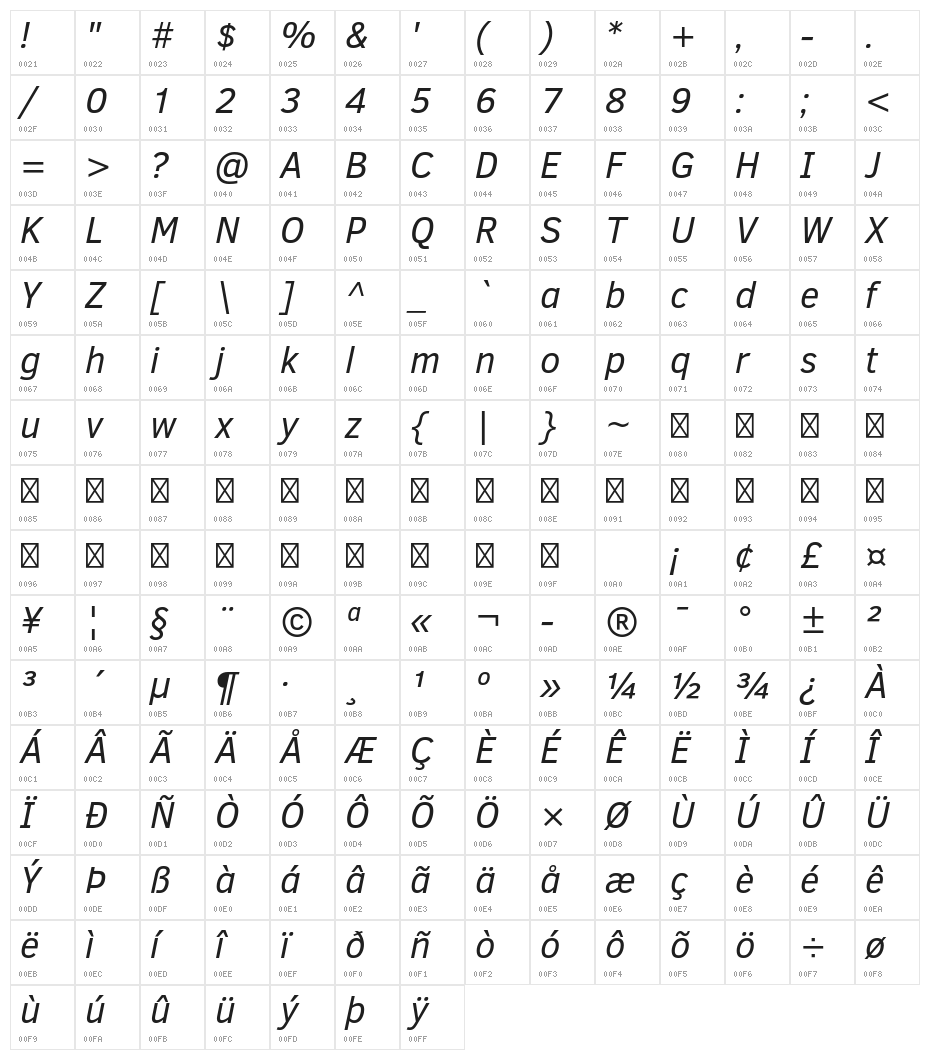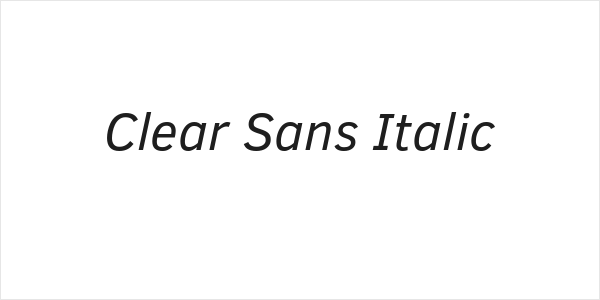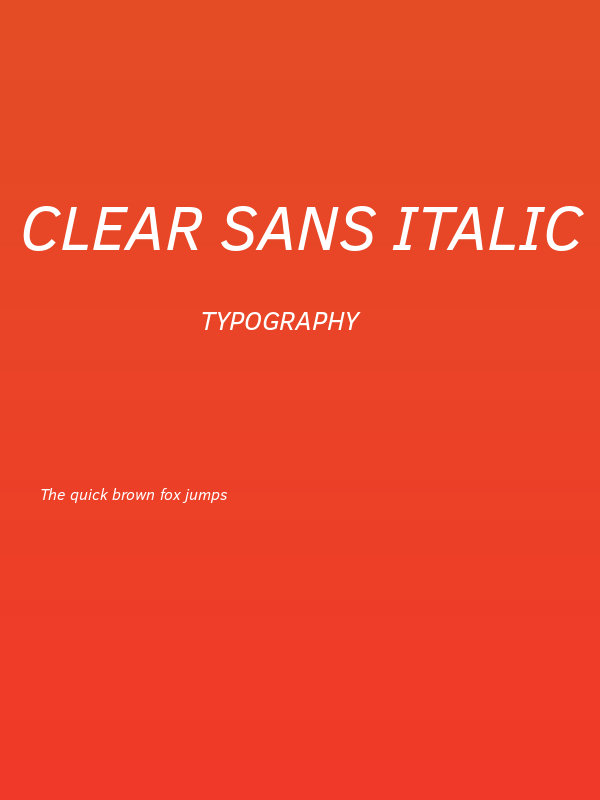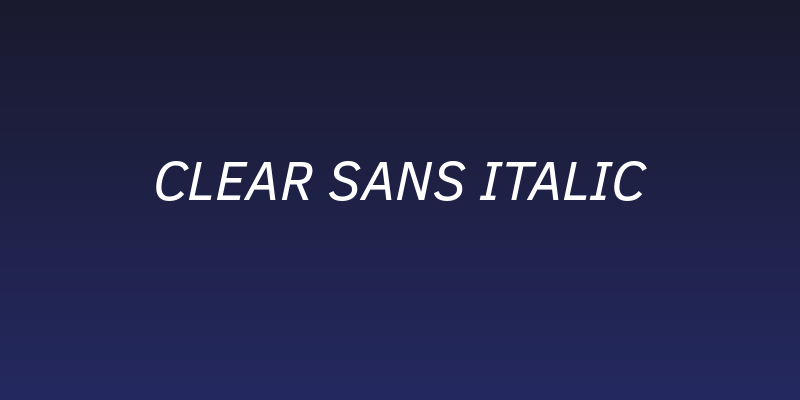
Clear Sans Italic Font
Clear Sans Italic Description
This font features a clean and modern sans-serif design with a slight italic slant, giving it a dynamic and contemporary appearance. The characters are well-proportioned with a consistent stroke width, contributing to its legibility and versatility. The uppercase letters are bold and assertive, while the lowercase letters maintain a friendly and approachable feel. The numerals are clear and distinct, making them suitable for both digital and print applications. The special characters are well-integrated, ensuring a cohesive look across various uses. Overall, this font balances professionalism with a touch of elegance, making it suitable for a wide range of design projects.
| Proposed Projects | Ideal for corporate branding, digital interfaces, editorial design, and advertising materials. |